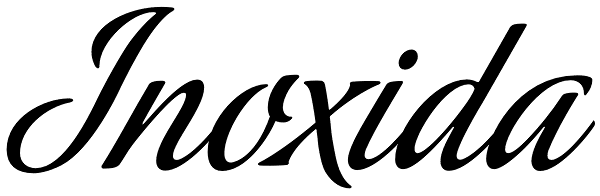
Inoxida
Inoxida is Oxida's softer and more graceful sister. While Oxida has become quite the common sighting on the packaging of vegetables and organic foods, Inoxida now comes to fit the bill for food packaging that can benefit from more sophisticated...